New Typefaces with Old-World Tone
As the holiday season wraps us in the warmth and nostalgia of yuletide tradition, FontShop’s final release of 2008 strikes a decidely old-world tone with several historically inspired serif families and a typeface derived from the handwriting of an early 20th century author.
FF Mister K Pro
The manuscripts of author Franz Kafka had such a profound impact on Finnish graphic and type designer Julia Sysmäläinen that she decided to convert his handwriting with its unusually strong calligraphic characteristics into a digital script.
FF Reminga OT
FF Reminga is a fresh take on the Garamond tradition, rather sober (for Xavier Dupré’s work) and especially legible at 10–12 points. It also comes in a Titling version which is narrower and even more elegant and calligraphic. FF Reminga isn’t a new design, but the improvements Dupré made for the new OpenType version are so noteworthy that it deserves a mention up here in the new releases. Get the Pro version for extended language support. ??
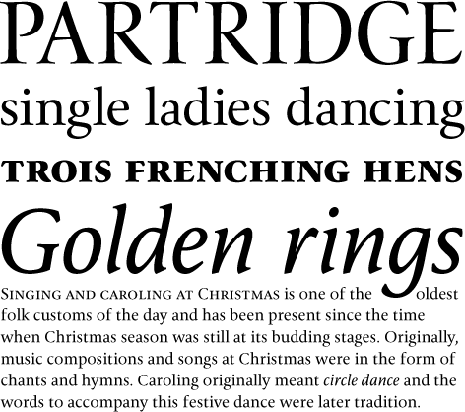
Romain BP
At first glance, Romain BP appears to be a classical serif face, a refined and elegant revival. But further inspection reveals forms based on mathematical, not calligraphic ideals. Unlike its 17th century French model, Romain BP Text is more synthetic in its structure, more radical and modern. Meanwhile, Romain BP Headline is a complementary font, which fully exploits the graphic potential of the original model with striking contrast and ornamental ligatures and detail.
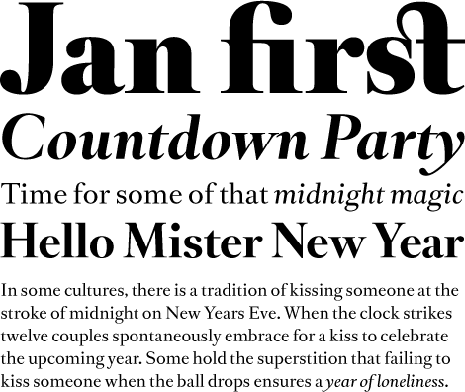
Adam BP
Adam is the first typeface made in Estonia specially for reading sizes and continuous text. Because Anton Koovit had no local text typefaces to look at, Adam’s influences come from many different sources. But it is the impetus for the design that might be most interesting.??While at the Royal Academy in the Hague (KABK), Koovit sought to create a typeface for art manifestos. As the project grew (to over 700 glyphs per font) it became clear that such documents require, like any other text which is to be seen and read, readability across long distances of copy. The family also needed variants for the creation of hierarchies (to represent the writing of multiple authors). So Adam has been made with multiple weights, a fitting true italic and four display stencil-based cuts. The result is a family well-suited for curatorial and critical writings, gallery publications, magazine articles, and signage.
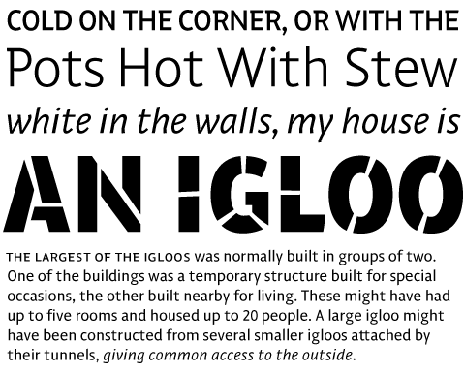
LaPolice BP
François Rappo’s LaPolice is loosely based on 18th century specimens by Claude Lamelse’s foundry in Paris. Despite its roots, LaPolice is a contemporary design, dynamic in its balance, with a touch of irony in its references of historic details.
Capsa
Capsa is a typeface designed for use in books. Although inspired by Gros Romain Ordinaire and Saint Augustin Gros Oeil from the type specimens of Claude Lamesle, this voluptuous design does not intend to be a strict revival. While the basic glyph set is sober enough for any text, the included ligatures and swashes make Capsa headlines glide across the page with extravagant aplomb.